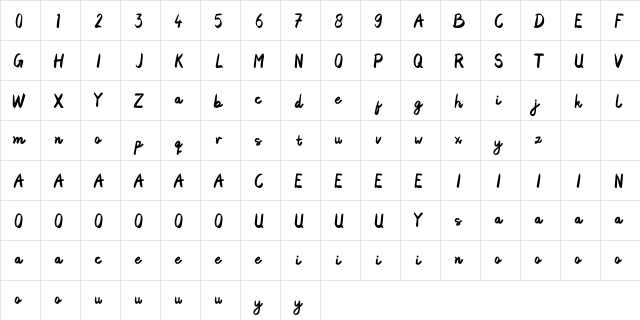
Artdraws Demo Regular
| Foundry | Typemacz Studio |
| Designer | Yusuf Sangdes |
Design Context for Artdraws Demo Typeface
Artdraws Demo is a composed and adaptable typeface that performs quietly and consistently across a wide range of design contexts.